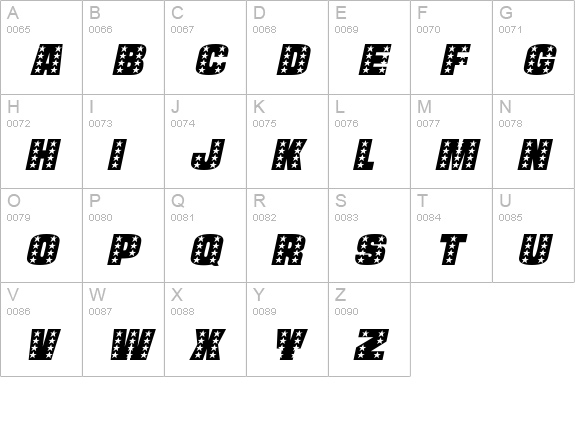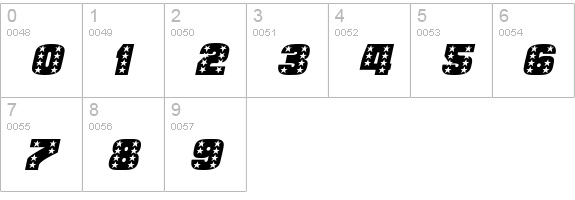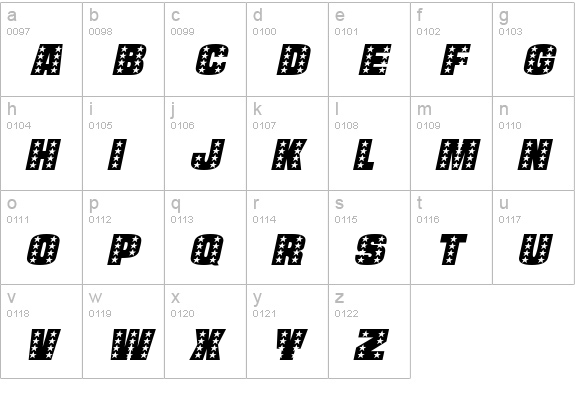
StarsCaps Italic Font Details
StarsCaps Italic is a distinctive, italic variant in the StarsCaps typeface family \xE2\x80\x94 well suited to design and typography projects.
Introducing StarsCaps Italic font, a stunning and elegant typeface that will elevate your designs to new heights. Its sleek and slanted letterforms exude sophistication and creativity, making it the perfect choice for a wide range of projects. StarsCaps Italic font stands out with its unique combination of curvaceous lines and intricate details. Each letter is meticulously crafted to create a harmonious balance between the flowing curves and sharp angles, resulting in a captivating and eye-catching display. Whether you're designing a logo, creating a poster, or crafting a stylish invitation, StarsCaps Italic font will add a touch of class and refinement to your work. Its versatility allows it to seamlessly adapt to various design aesthetics, from modern and sleek to vintage and nostalgic. What makes StarsCaps Italic font even more appealing is that it is freely available to download at FontsMarket.com. This means you can effortlessly enhance your designs without breaking the bank. Simply visit FontsMarket.com, locate StarsCaps Italic font, and unlock the endless possibilities it offers. With StarsCaps Italic font, you can effortlessly captivate your audience and leave a lasting impression. Its elegant and timeless design will elevate your projects to a whole new level, ensuring that your message stands out in the sea of mediocrity. Don't miss the opportunity to enhance your creative endeavors with the allure of StarsCaps Italic font. Download it for free at FontsMarket.com and let your designs shine like never before.